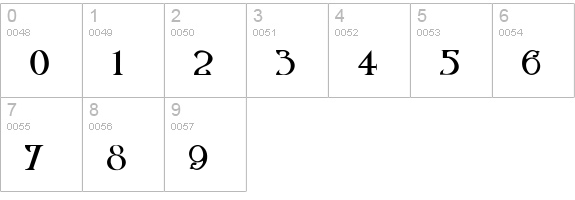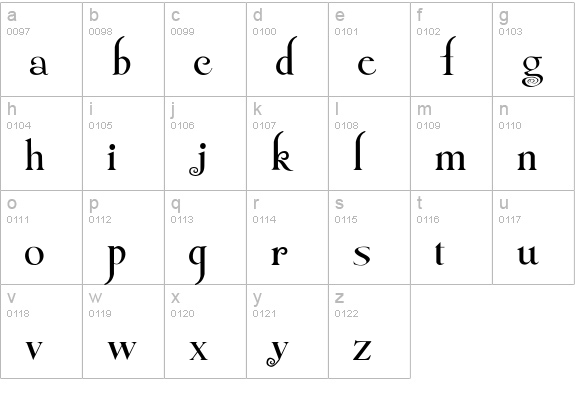
Twilight New Moon Font Details
Introducing Twilight New Moon font, a captivating and mysterious typeface that will transport you into the enchanting world of the Twilight saga. Designed with elegance and versatility in mind, this font is the perfect companion for all your creative endeavors. With its delicate curves and intricate details, Twilight New Moon font captures the essence of romance and adventure. Its unique design evokes a sense of both darkness and light, mirroring the eternal struggle between love and the supernatural. Whether you're designing a book cover, crafting a logo, or creating stunning graphics, Twilight New Moon font will add a touch of magic to your projects. Its bold yet graceful letterforms command attention, while its subtle nuances create a sense of depth and intrigue. And the best part? Twilight New Moon font is available for free! You can easily download it at FontsMarket.com, where you'll find a vast collection of high-quality fonts for all your design needs. Embrace the power of this enchanting typeface and let your creativity soar to new heights. Unleash your imagination and bring your designs to life with Twilight New Moon font. Its timeless beauty and versatility make it a must-have for any designer or Twilight fan. Download it today and let the captivating allure of this font mesmerize your audience.